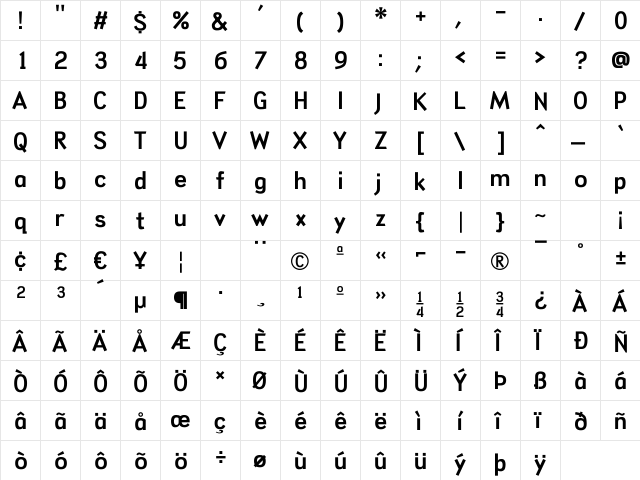
Tin Doghouse Regular
| Foundry | Objets Dart |
| Designer | Darren Rigby |
Design Context for Tin Doghouse Typeface
Tin Doghouse is a composed and adaptable typeface that performs quietly and consistently across a wide range of design contexts.